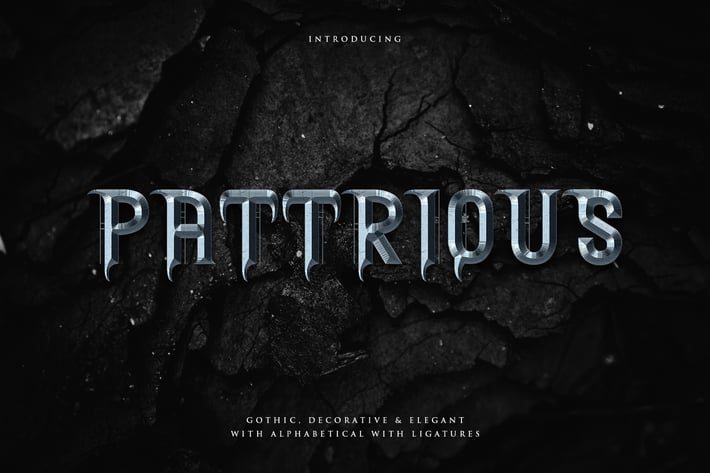
Pattrious - Elegant Gothic Display Typeface
Introducing Elegant font. Are you looking for a bold and solid gothic display font that has vintage blackletter feeling? We can help! Try to download our Pattrious font. The font is suitable to use for any occasion such as book, logo, band, event, music, halloween, and others :)